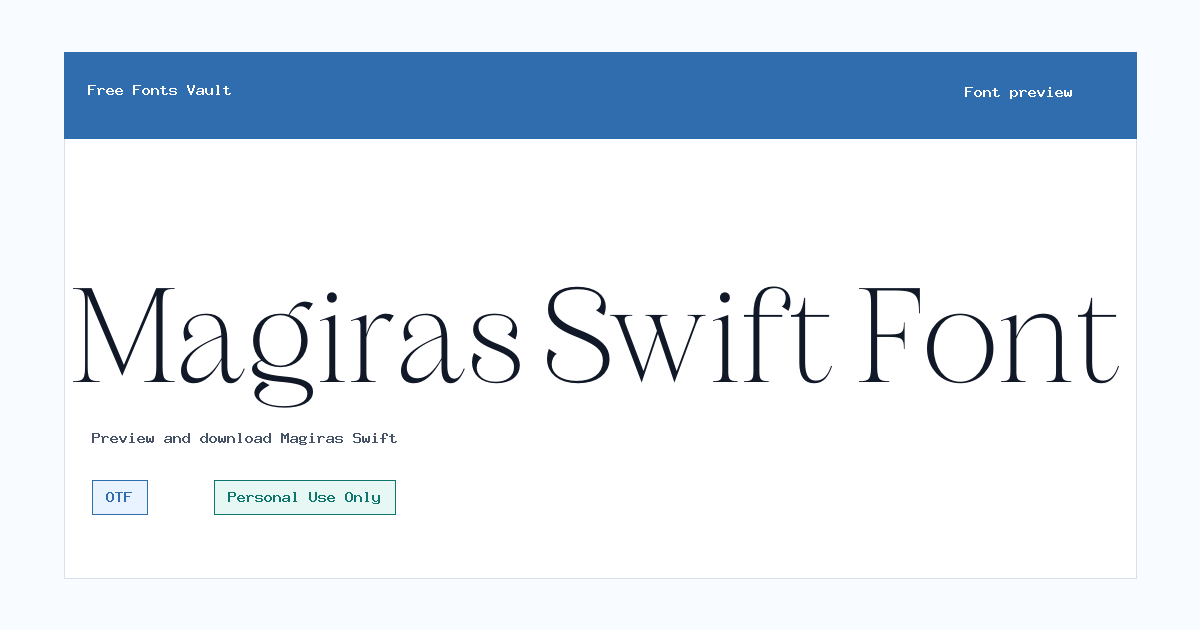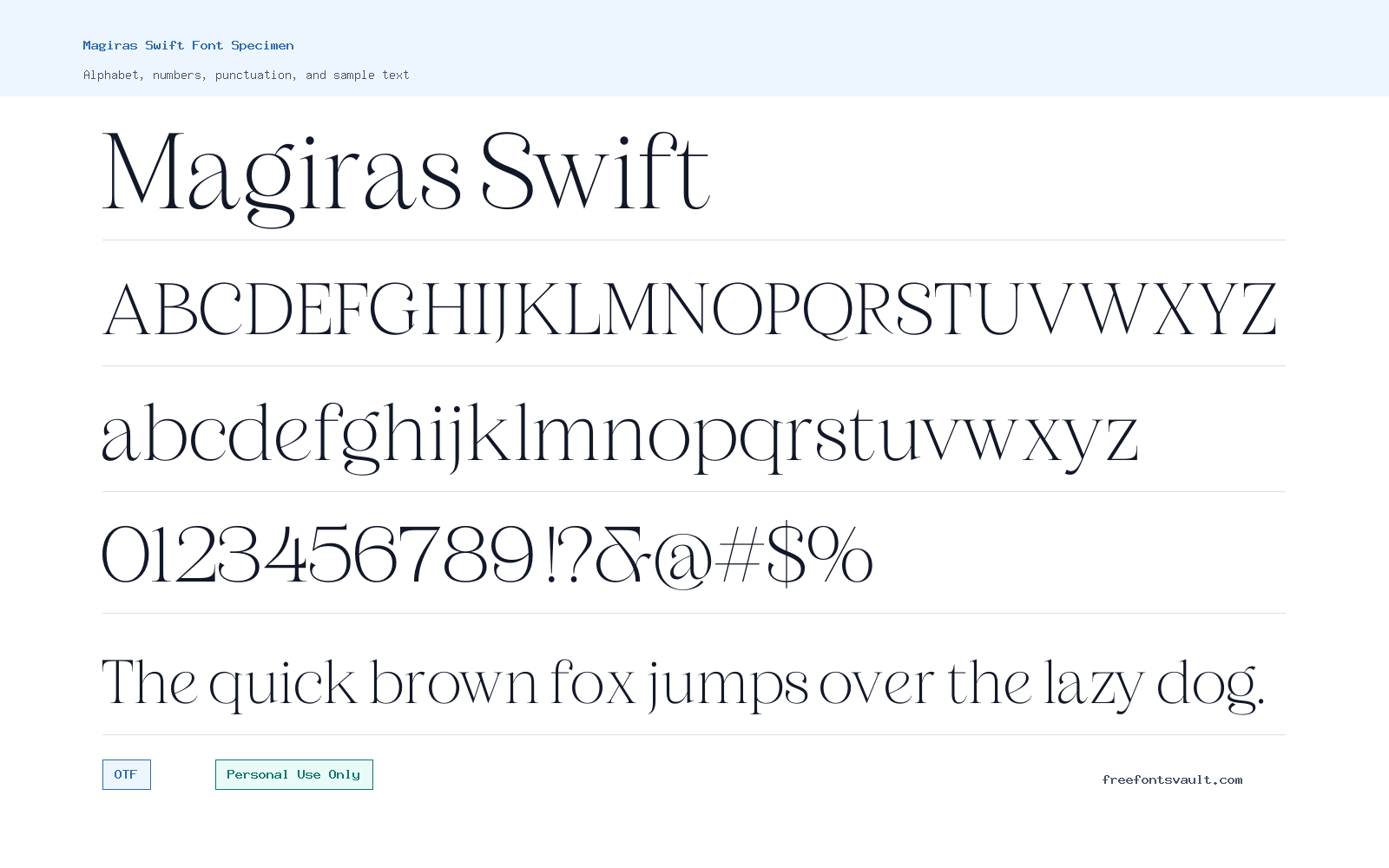
Magiras Swift
- Designer Heru Utama Putra
- Foundry TimelessType
Use the preview tool with the exact words you plan to design around. Try uppercase and lowercase, punctuation, numbers, and spacing-sensitive pairs before using it in a finished layout. If your design needs long paragraphs, test several full lines first; many decorative or display-leaning serif fonts look strongest in short settings and can feel tiring in dense body copy. For pairing, start with a simple sans serif for supporting text so Magiras Swift can carry the main headline without competing with another expressive typeface.
- Useful for short display text, headings, and personal design mockups
- Personal invitations, quote cards, and social graphics
- Editorial-style titles, blog headers, and poster mockups
- Logo concept drafts and nameplate experiments for personal projects
- Testing serif typography in short, high-impact text
What kind of font is Magiras Swift?
Magiras Swift is listed as a serif font. It is best tested for headings, short text, and design mockups where a serif style is appropriate.
Who designed Magiras Swift?
Magiras Swift is credited to Heru Utama Putra, with TimelessType listed as the foundry.